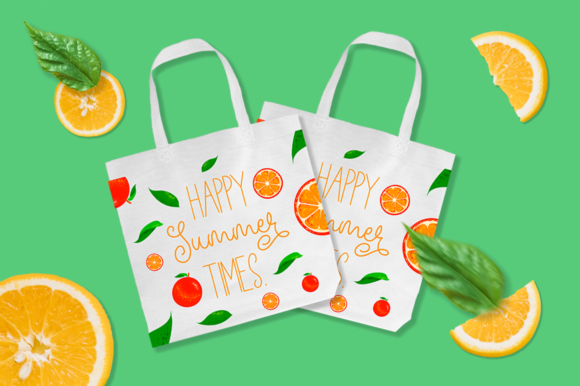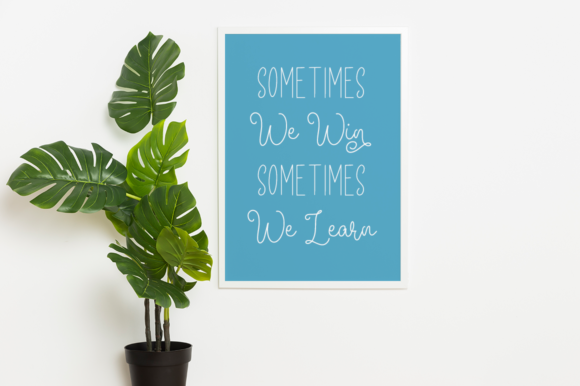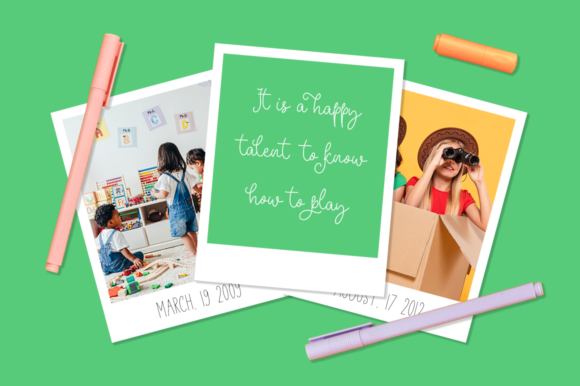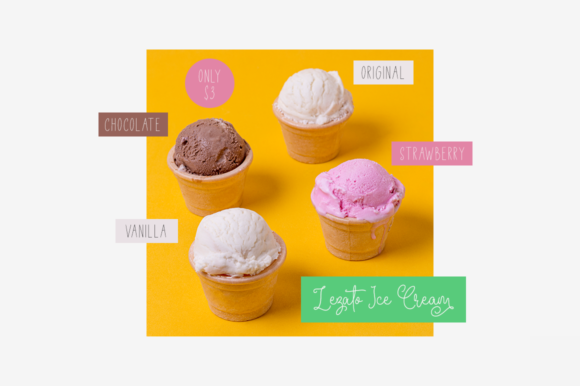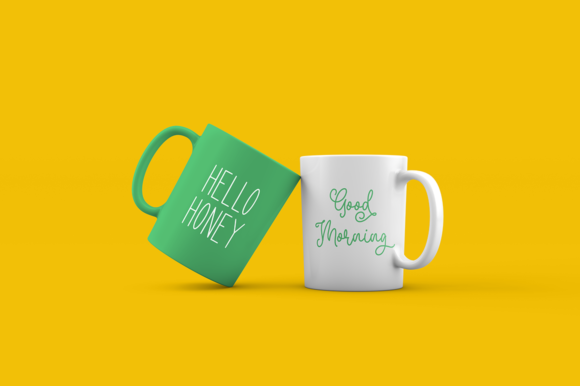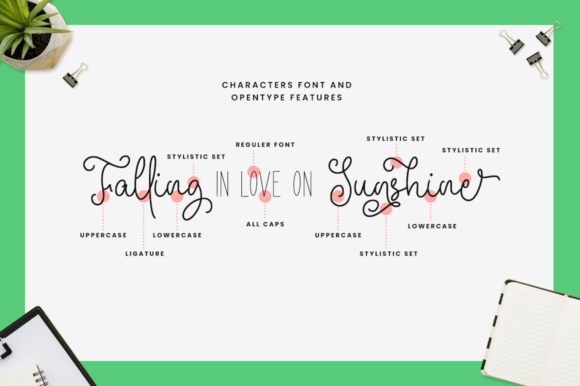
Get Ready to Shine with the Beauty Festival Font
You know that moment when you’re brainstorming ideas for your next craft project and you just can’t seem to find the right font to match your vision? It’s like the whole design is waiting for that perfect finishing touch, and you’re not sure what it is. That’s exactly where the Beauty Festival Font comes in – a pair of complementary fonts designed to elevate your creations and add a dash of personality.
With the Beauty Festival Font, you’ll have access to two stylish fonts that work beautifully together or on their own. Whether you’re designing invitations, social media graphics, or simply want to add a touch of elegance to your journal pages, these fonts are sure to make your project stand out. Plus, with PUA encoding, you’ll have no problem accessing all the glyphs and swashes you need to create stunning designs.
Beauty Festival Font Key Features
- Font Family: A beautiful and elegant script font designed specifically for use in festival and celebration contexts.
- Character Count: Includes a wide range of characters, including uppercase and lowercase letters, numbers, punctuation, and special symbols.
- Resolution: Optimized for high-resolution displays, making it suitable for use in digital designs, such as posters, flyers, and social media graphics.
- Unique Characteristics: Features a unique, hand-painted style with subtle brushstrokes and imperfections, giving it a distinctive and eye-catching look.
Designer Review: Beauty Festival Font
When I first laid eyes on the Beauty Festival Font, I was immediately drawn to its ✨ vibrant and playful vibe. It’s perfect for any project that needs a touch of whimsy and glamour. The font is extremely versatile and works well in a variety of contexts, from fashion and beauty branding to event promotions and social media graphics.
Some of the standout features of the Beauty Festival Font include:
- ✨ Unique and eye-catching letterforms that are sure to grab attention
- ✨ Excellent legibility, making it easy to read and understand
- ✨ Wide range of font sizes and styles to suit different design needs
However, I did notice a few limitations to the Beauty Festival Font:
- ⚠️ Limited language support, which may be a concern for designers working on projects that require multiple languages
- ⚠️ Not ideal for use in small text sizes, as the letterforms can become blurry and difficult to read
Overall, I would say that the Beauty Festival Font is a great choice for designers who want to add a touch of elegance and sophistication to their projects. While it may have some limitations, its unique features and versatility make it a valuable addition to any design toolkit.
For a more dramatic effect, pair the Beauty Festival Font with bold colors and ornate graphics.
For a more intricate design, experiment with layering and combining multiple text elements with the Beauty Festival Font.
For a more dynamic presentation, pair the Beauty Festival Font with eye-catching graphics and animations.
The Beauty Festival Font is ideal for:
- Beauty and wellness branding.
- Event invitations and promotional materials.
- Editorial content related to beauty and lifestyle.